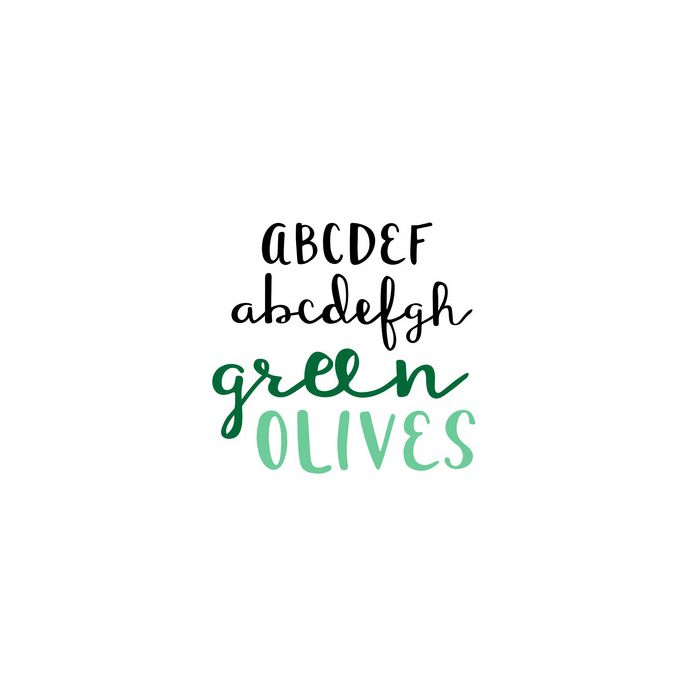
This quirky script font is the perfect font for any project! Green Olives has it all with standard and discretionary ligatures, and contextual alternates in full alphabet, numbers and symbols. 233 glyphs.